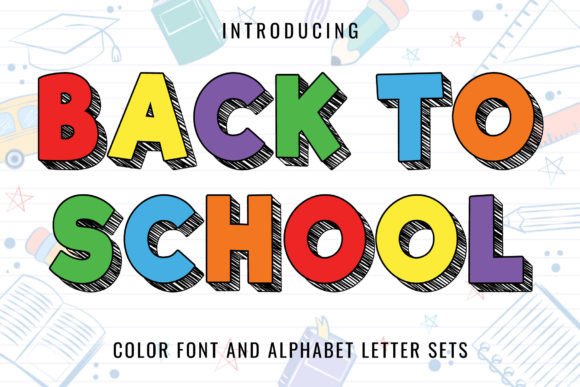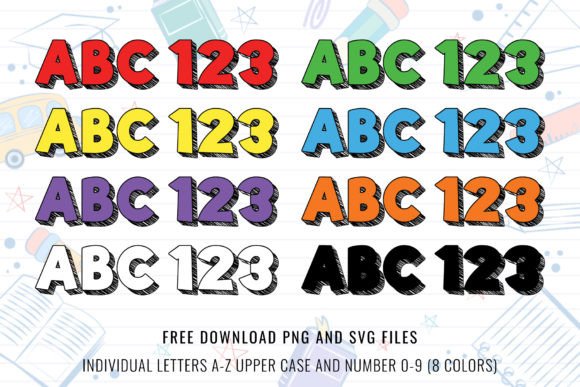
About the Back to School Font
Let us introduce you to Back to School Font, where timeless design meets modern craftsmanship. Introducing “Back to School Color Font” – is a fun and playful color font. It’s the perfect font for school-themed projects. It works great for creating cool designs that scream for attention. It’s ideal for anything ranging from t-shirts, book designs, restaurant menus, blog writing, and greeting cards to stickers, or anything that needs a casual touch. Fall in love with its incredibly cool style, and use it to create lovely designs!